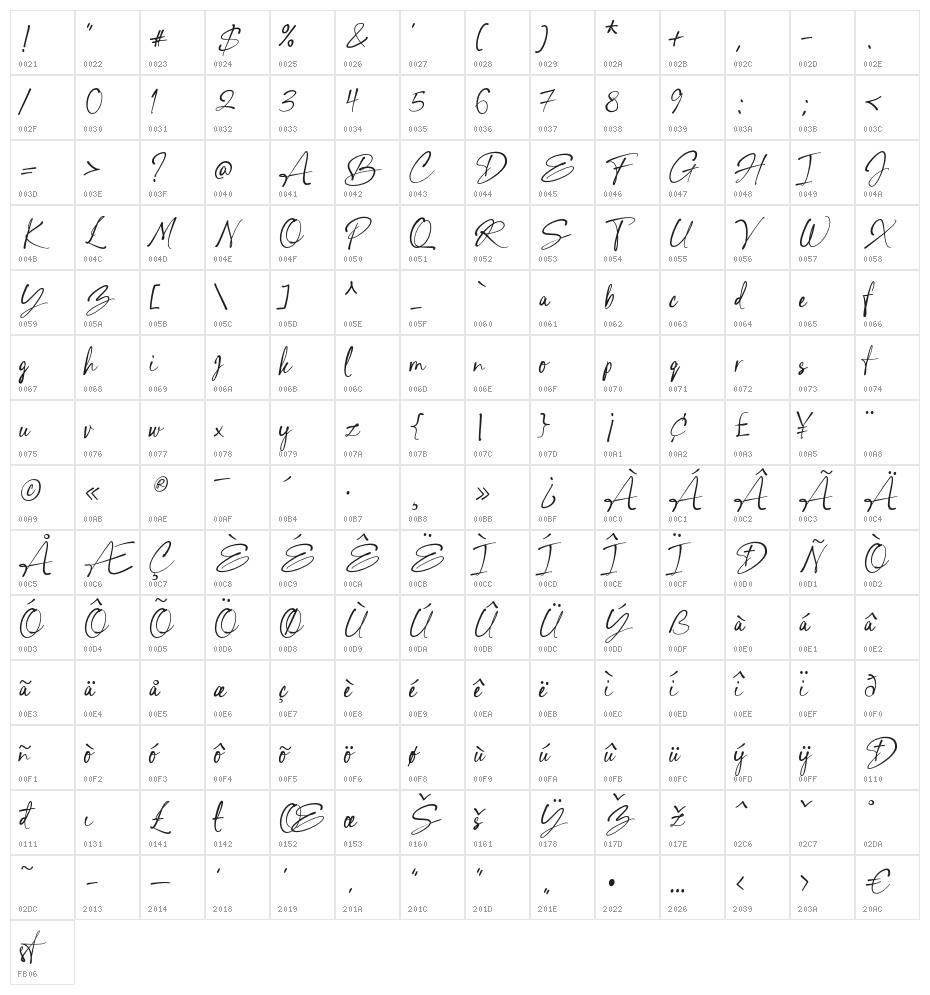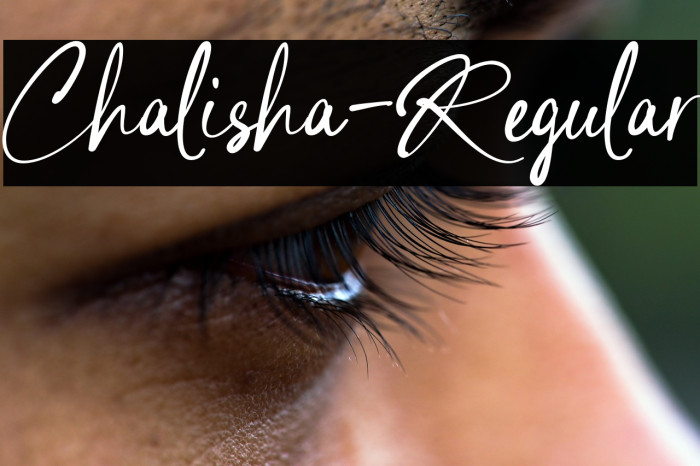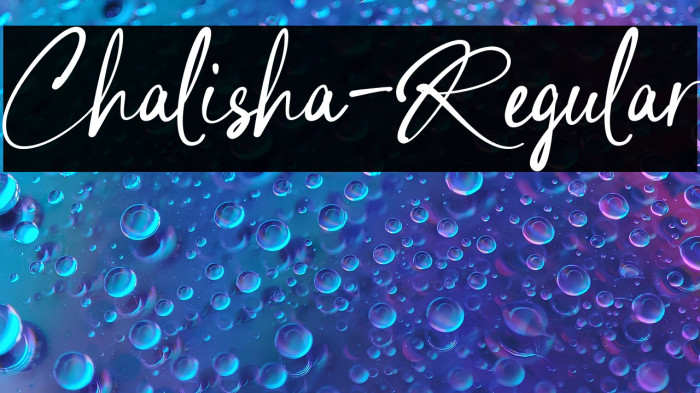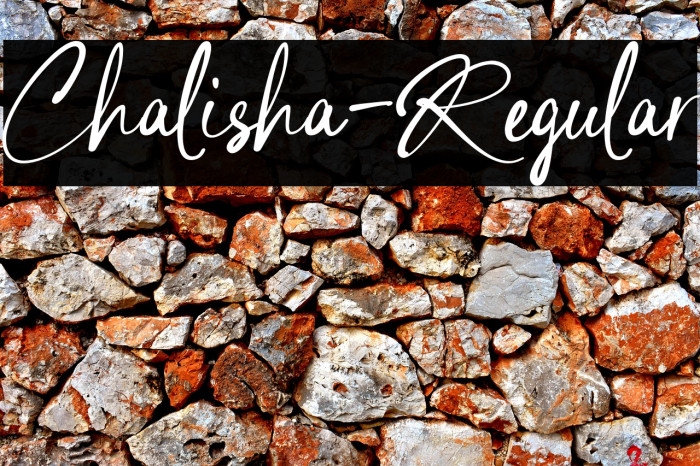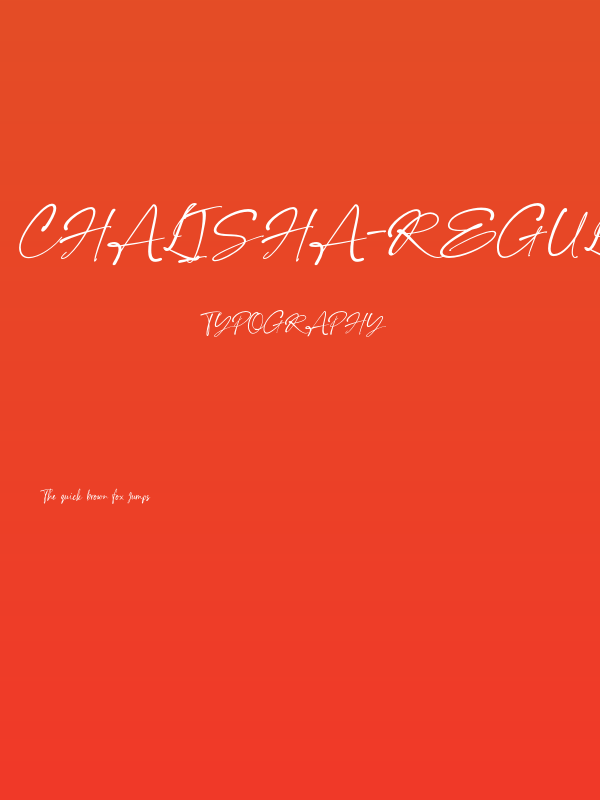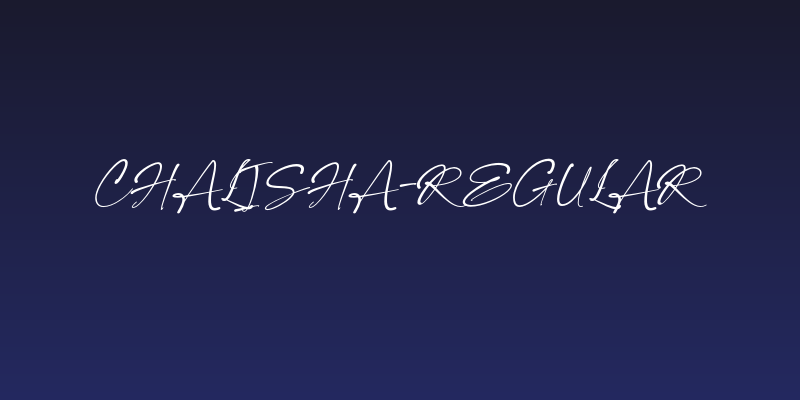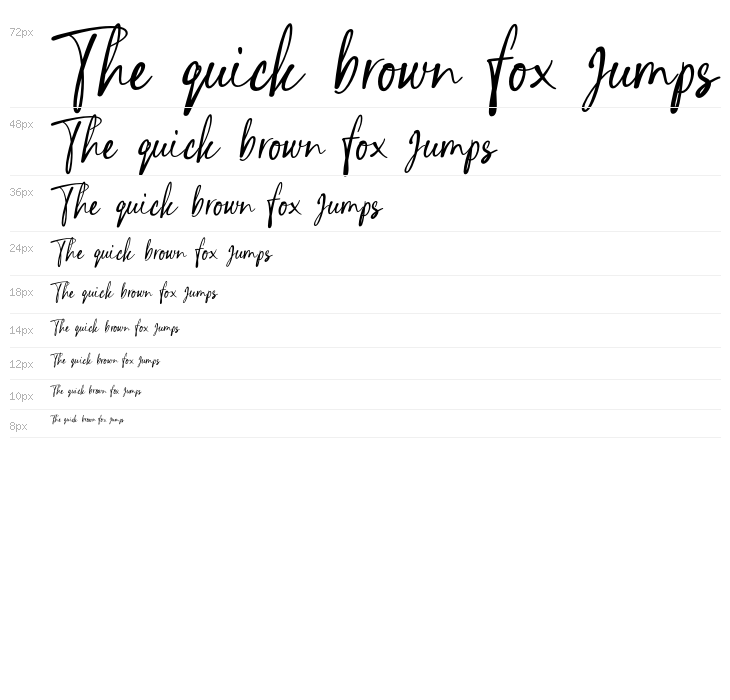
Chalisha-Regular Font
Chalisha-Regular Description
This font features an elegant and flowing script style, characterized by its smooth, cursive letterforms that mimic natural handwriting. The uppercase letters are slightly more elaborate, with sweeping curves and loops, while the lowercase letters maintain a consistent, fluid motion. The numerals are clear and distinct, maintaining the same cursive style, which adds a touch of sophistication. Special characters are well-integrated, ensuring that the font maintains its cohesive look across different uses. The overall design is both stylish and readable, making it suitable for a variety of applications.
| Proposed Projects | Ideal for wedding invitations, greeting cards, branding, and elegant logos. |